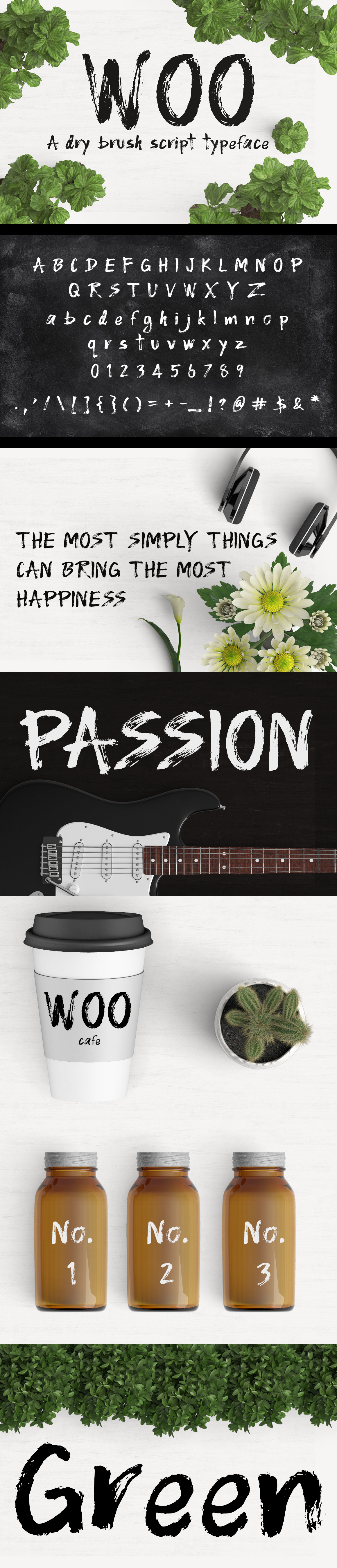
WOO Dry Brush Script Typeface
WOO is a dry brush handwriting script typeface written using real dry brush. It can be use as a header to give off fun, informal, rock, rush, grunge, dark handwriting style.
WOO come in standard English characters(A-Z, a-z), Latin letters, numbers(0-9) and Punctuations.